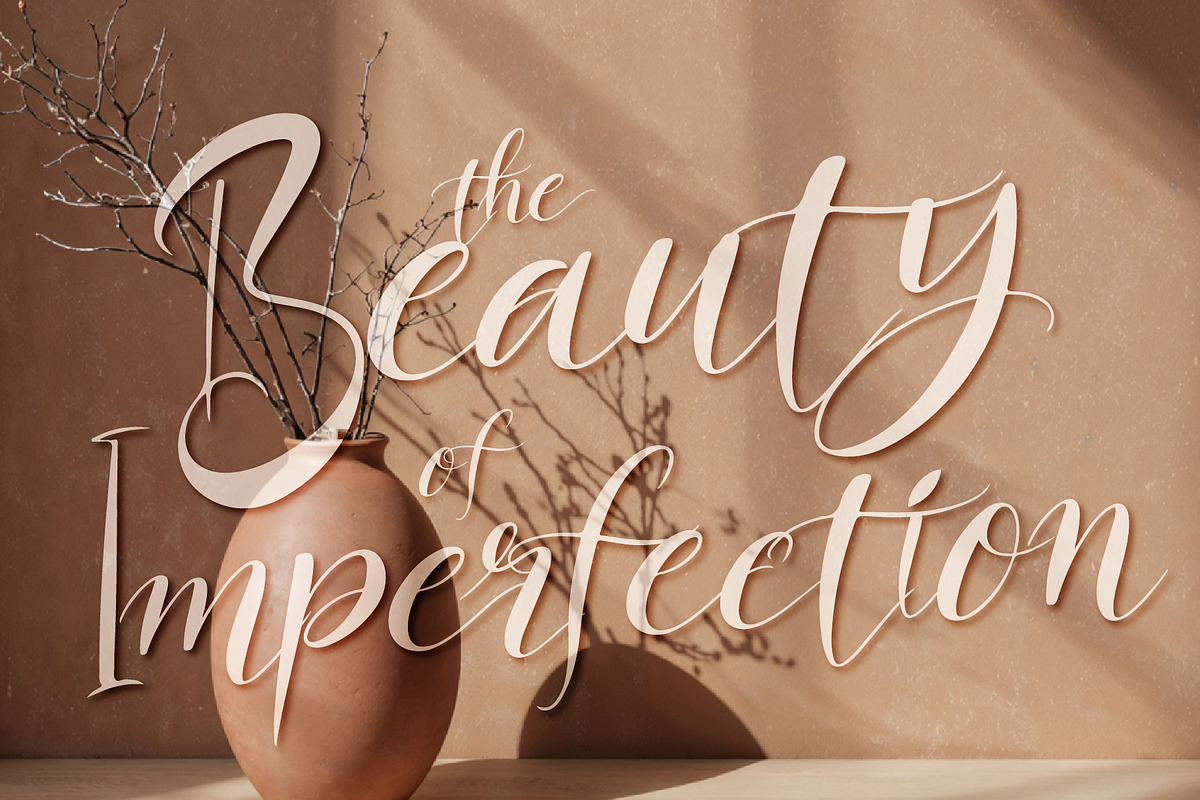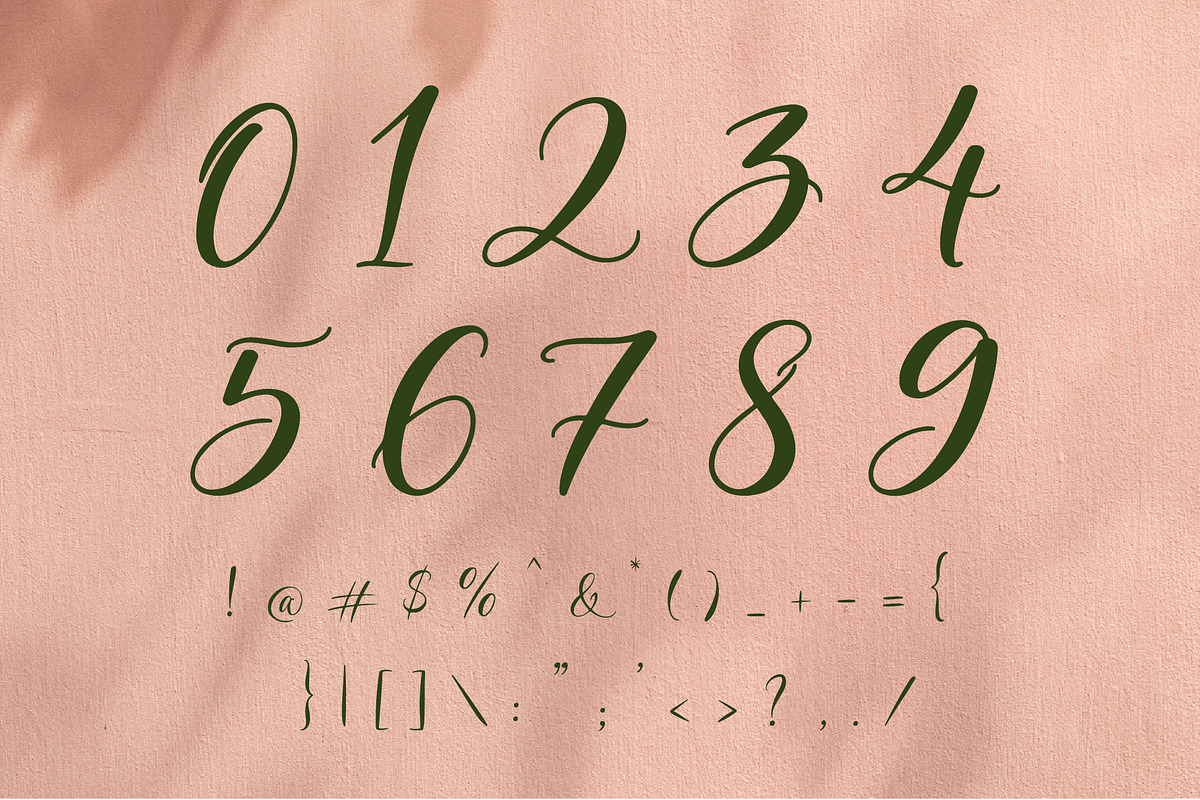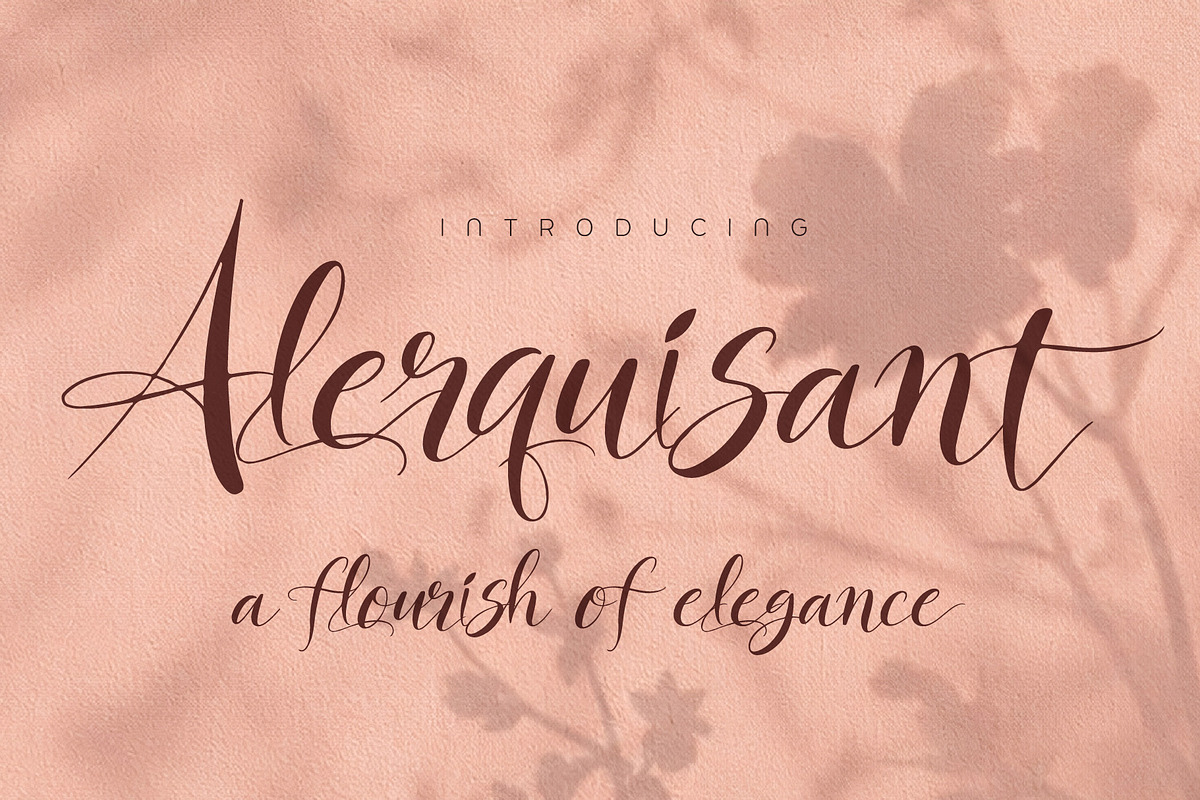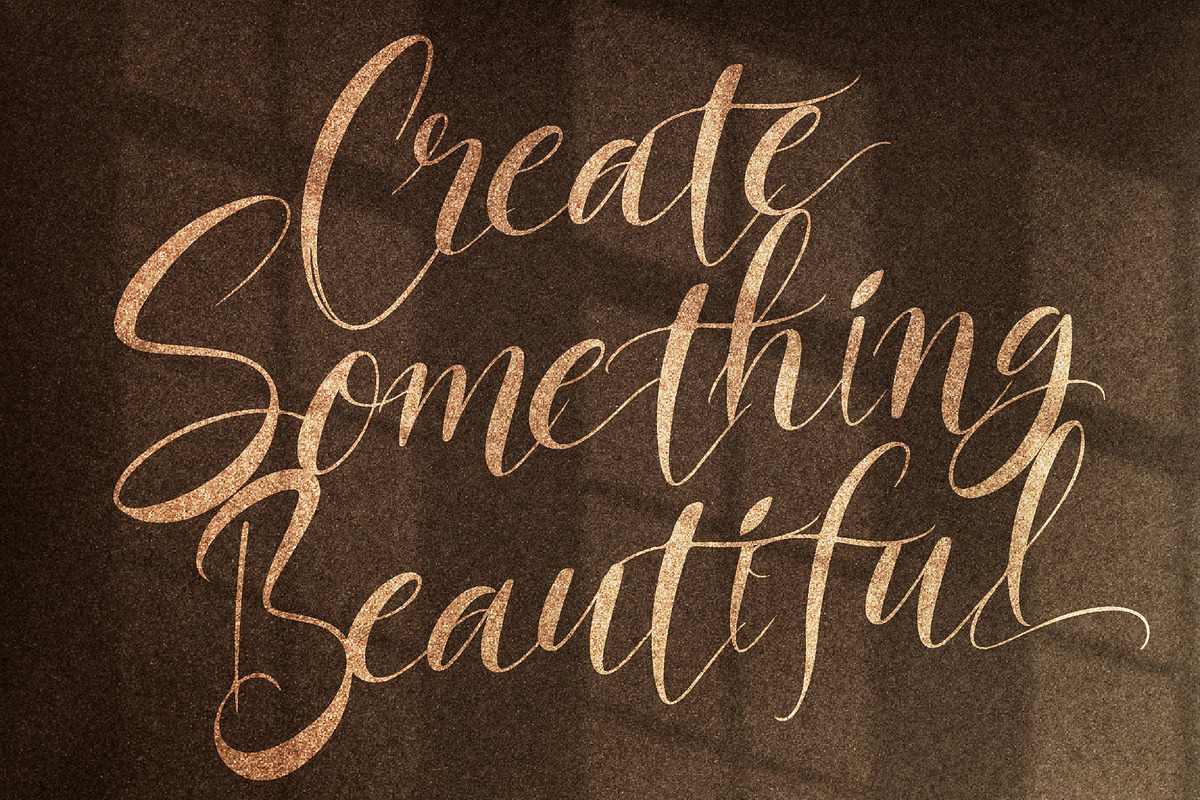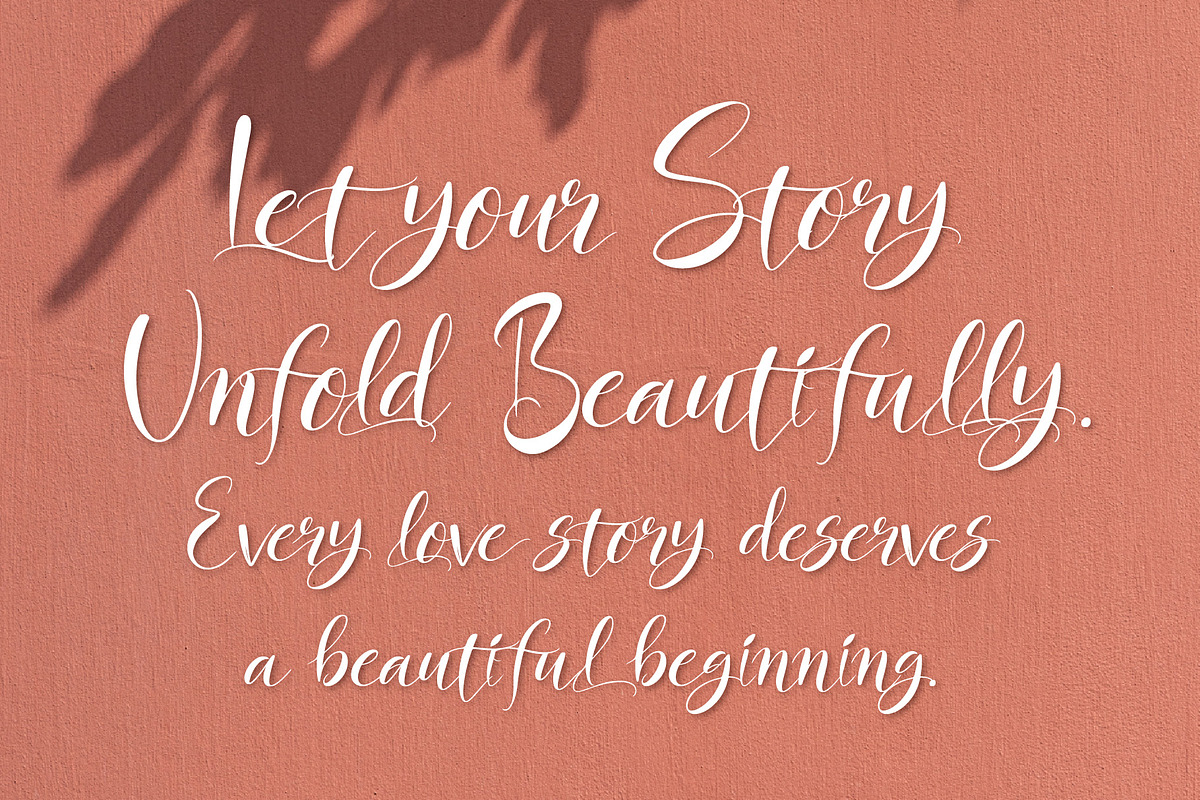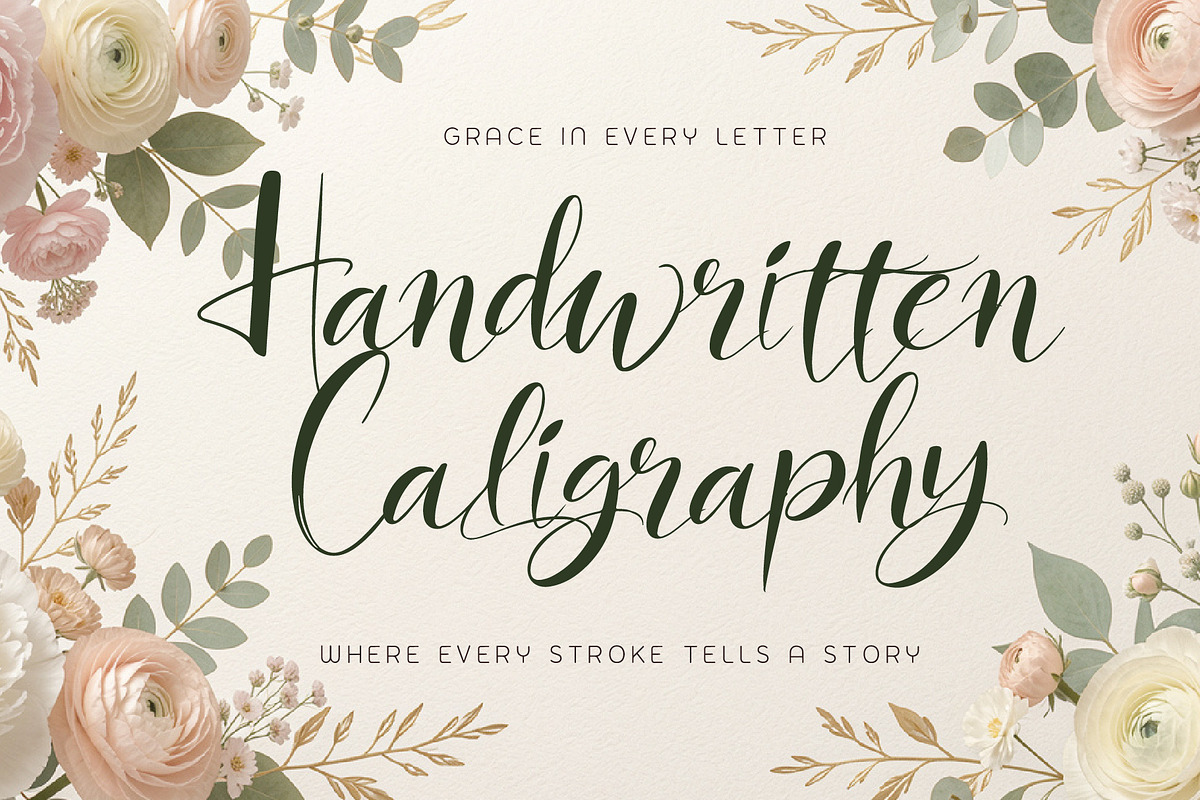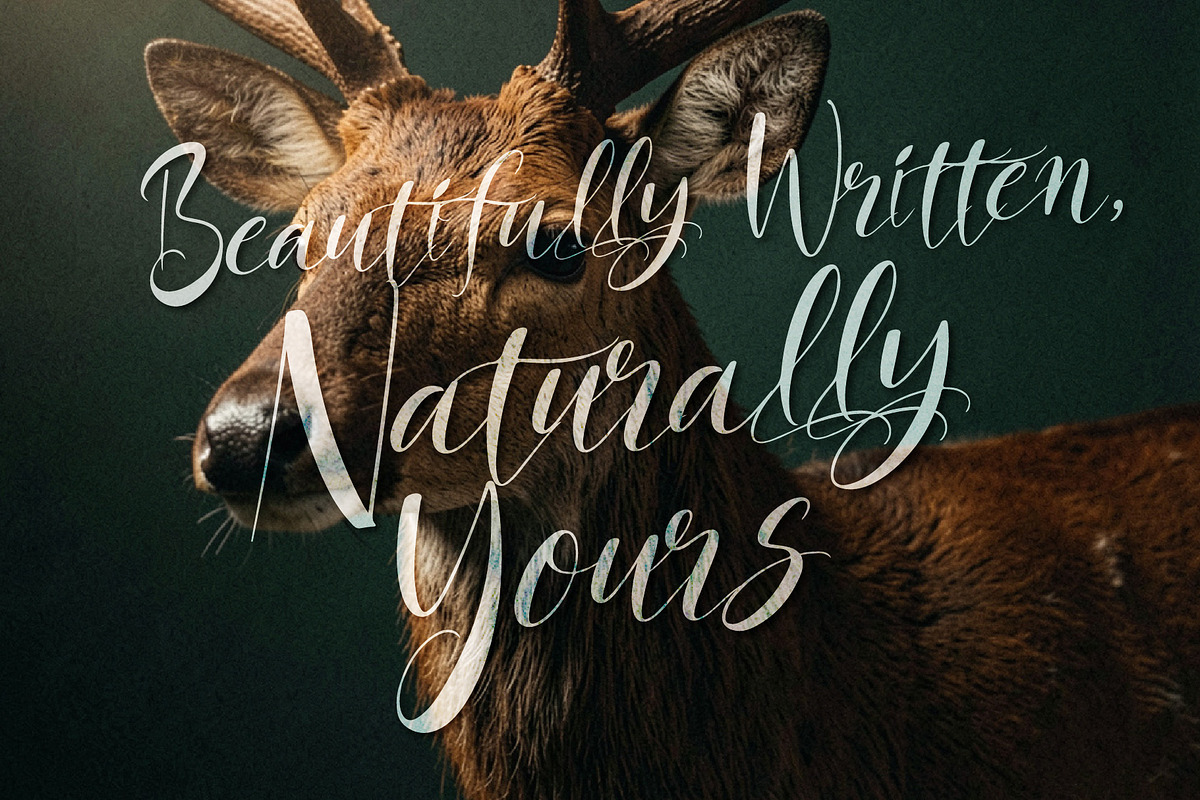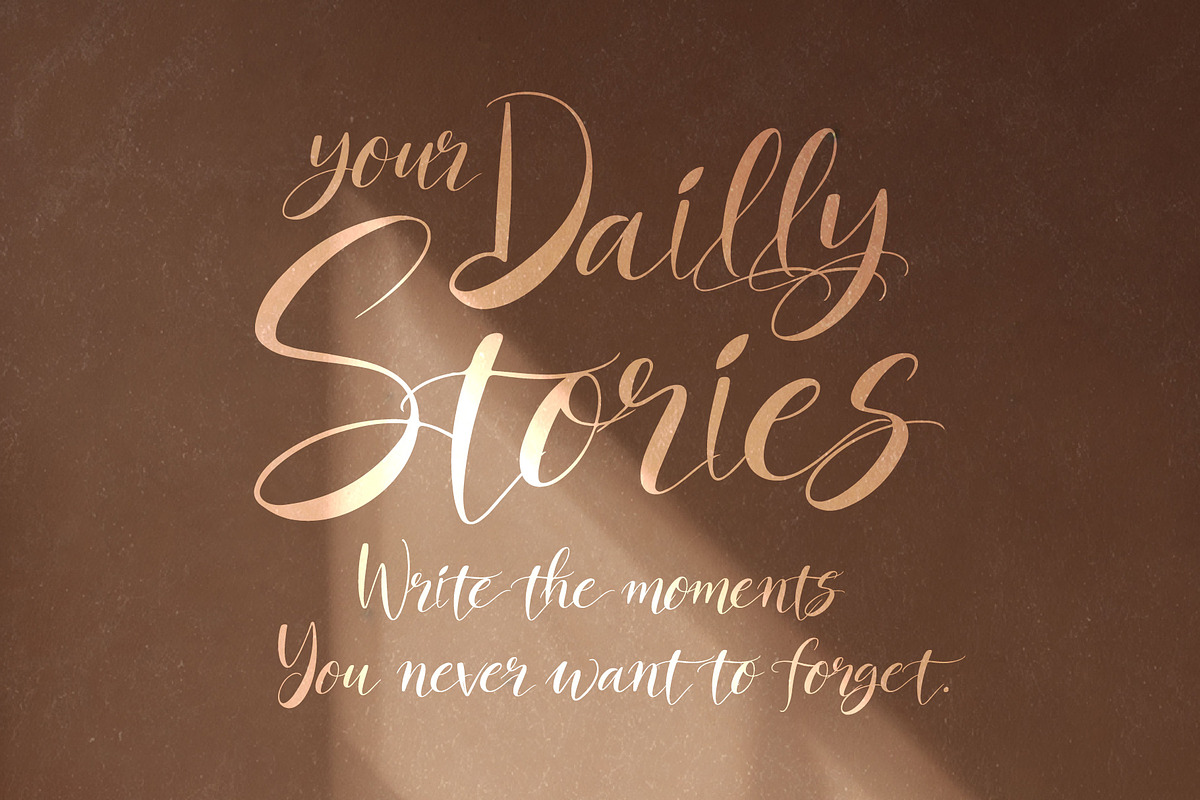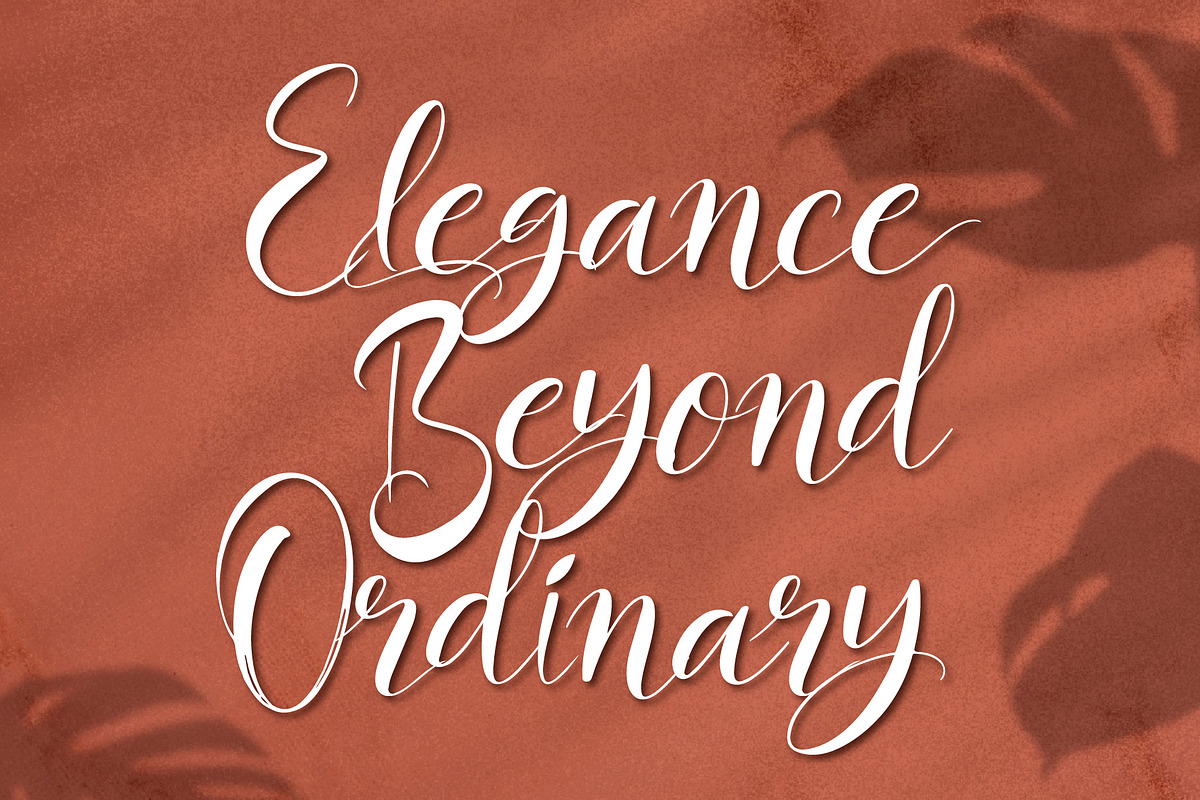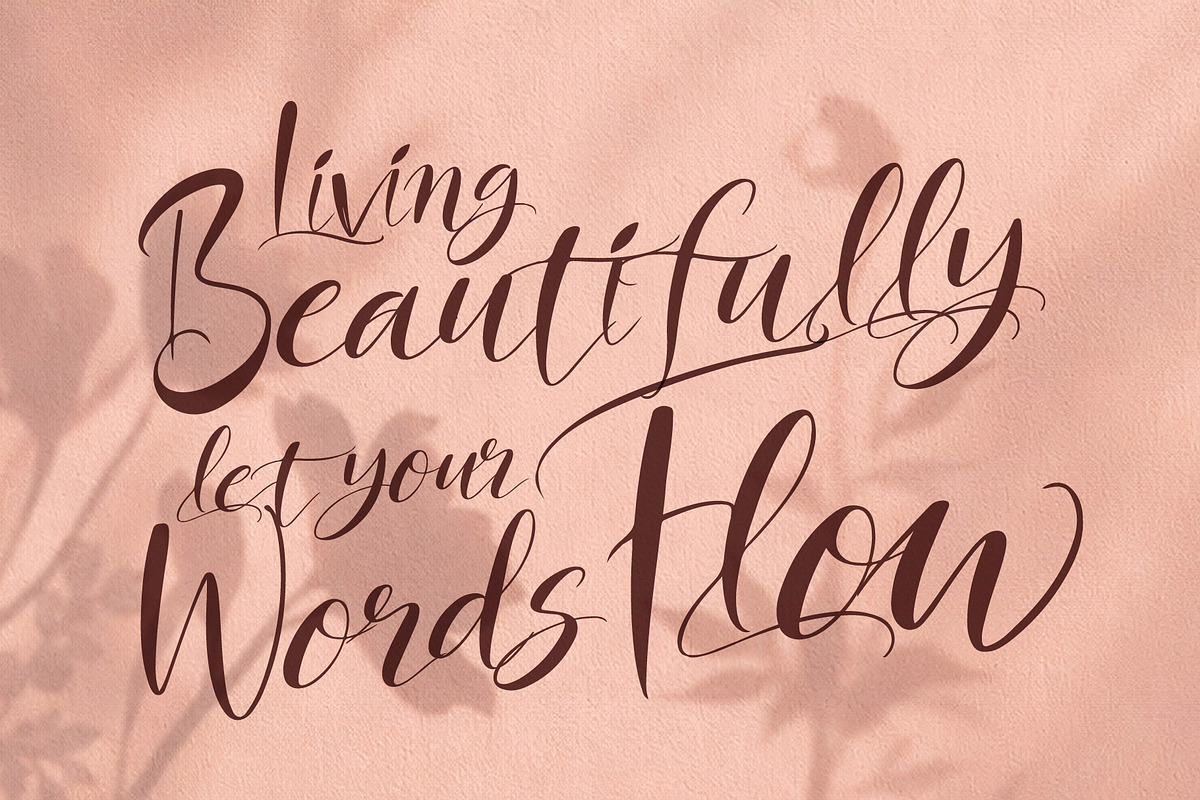
Alerquisant - Naturally Yours
Alerquisant is an elegant handwritten calligraphy typeface created for designs that need a graceful, expressive, and luxurious handwritten touch. Its flowing strokes, dramatic swashes, delicate hairlines, and bold calligraphic movements create a beautifully sophisticated visual personality.
With its romantic and artistic character, Alerquisant works beautifully for wedding invitations, feminine branding, beauty products, fashion identities, editorial designs, signature logos, stationery, packaging, social media graphics, greeting cards, quotes, and elegant display typography.
The combination of sweeping flourishes and naturally flowing letterforms allows Alerquisant to transform simple words into expressive visual statements perfect when your design needs a touch of elegance, personality, and handcrafted charm.